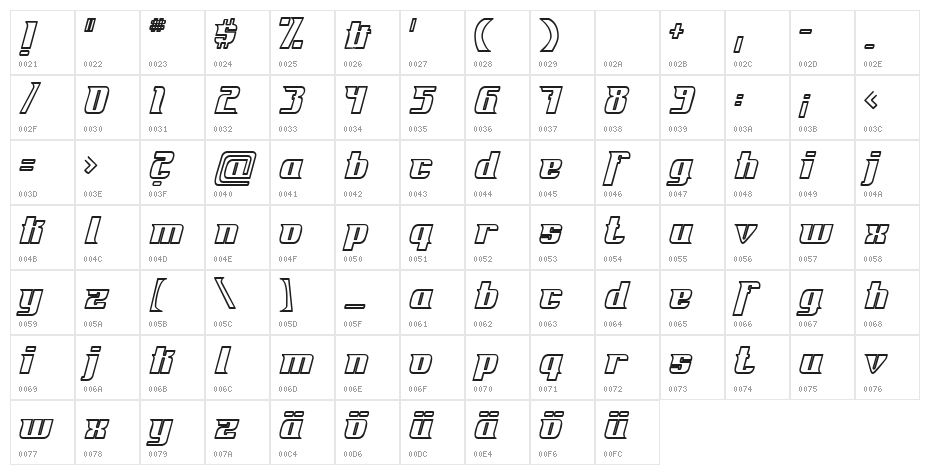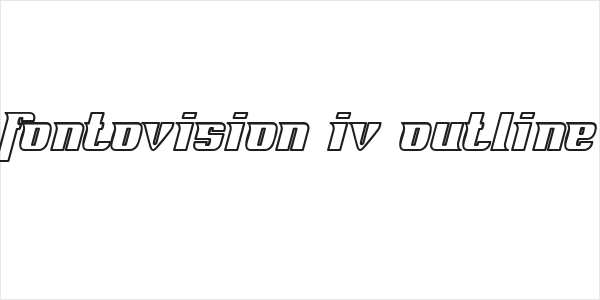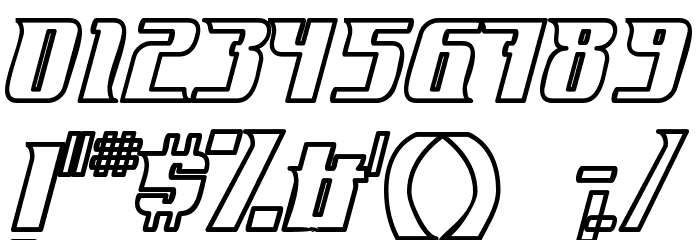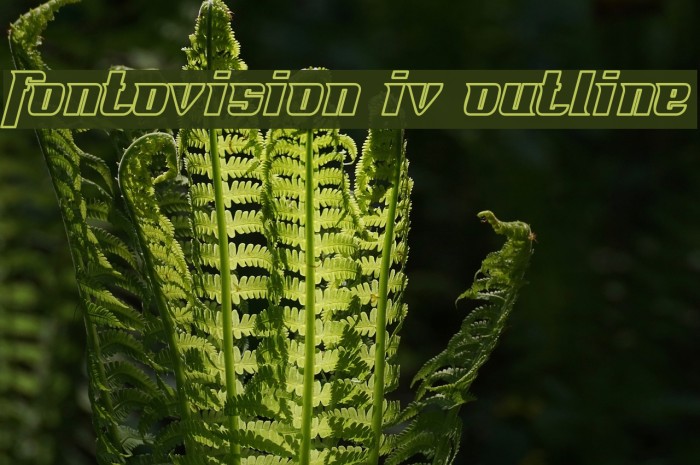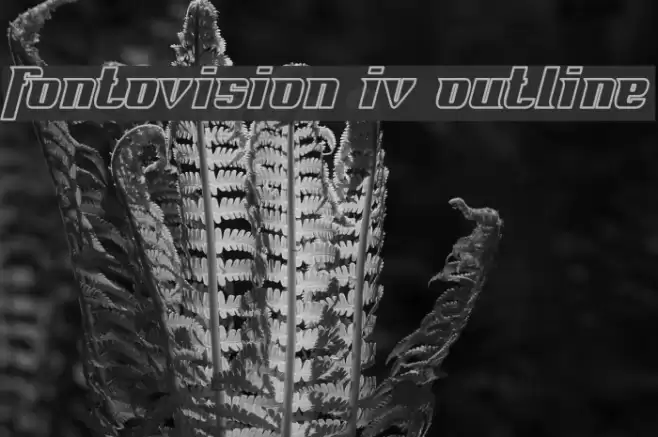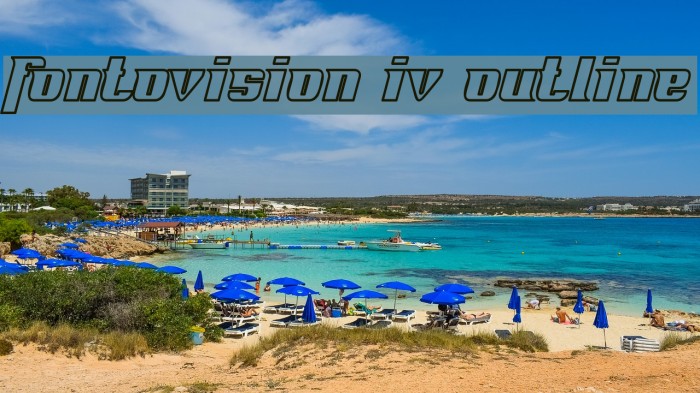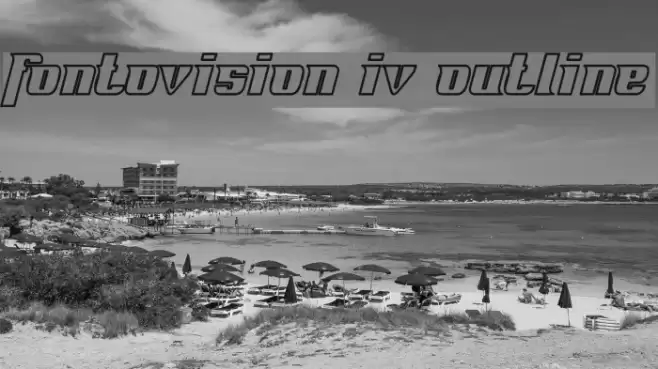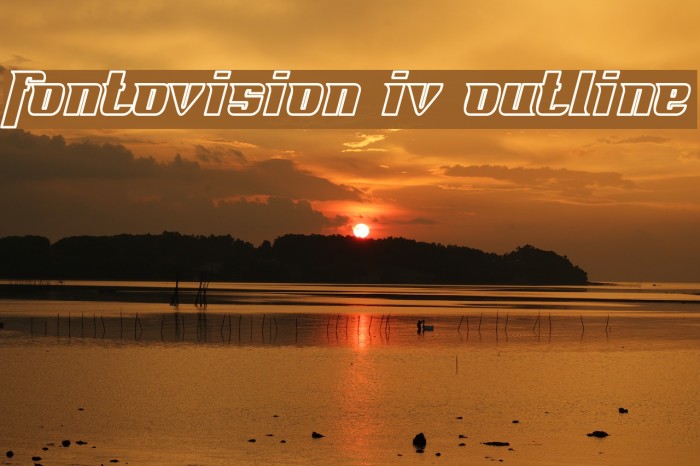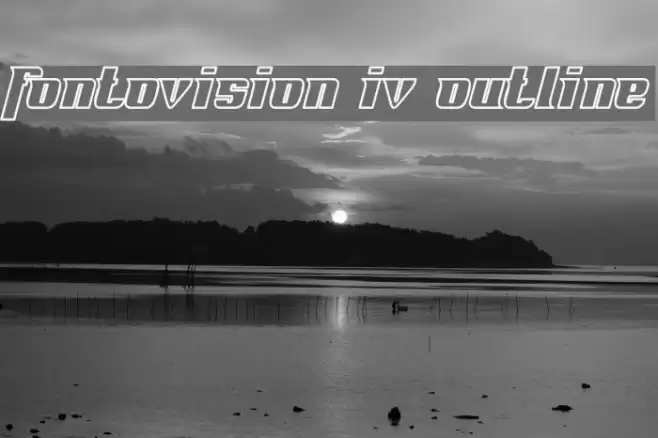
Fontovision IV outline Font
Fontovision IV outline Description
This font features a bold, geometric outline style that gives it a modern and futuristic appearance. The characters are constructed with sharp angles and clean lines, creating a sense of precision and clarity. The uppercase and lowercase letters maintain a consistent height, contributing to a uniform look. The numerals and special characters are designed with the same attention to detail, ensuring they complement the alphabetic characters seamlessly. The font's outline design adds a unique dimension, making it stand out in various design contexts.